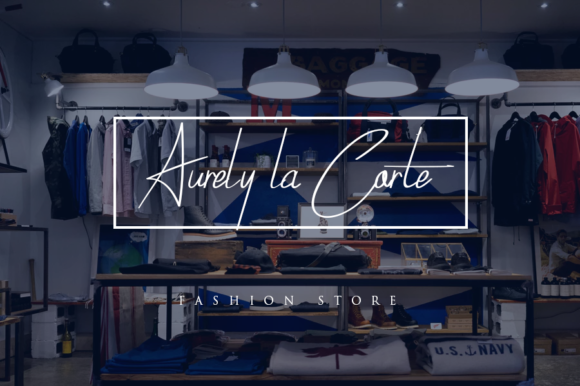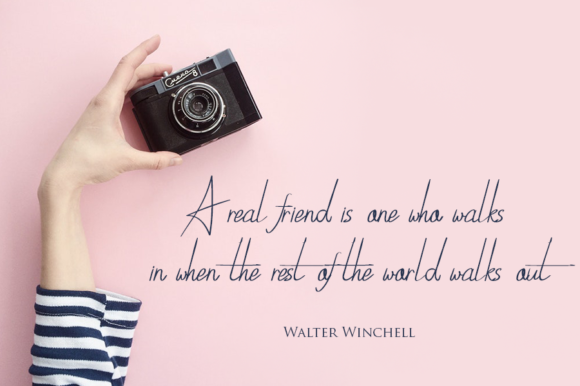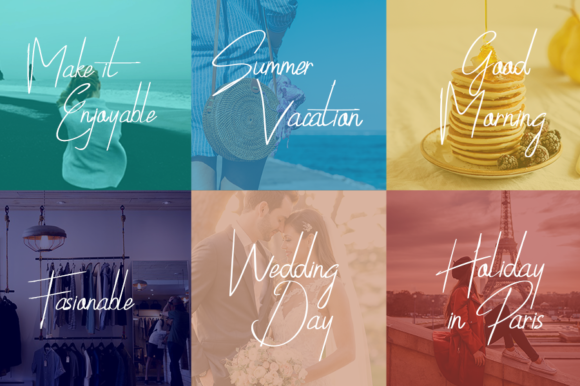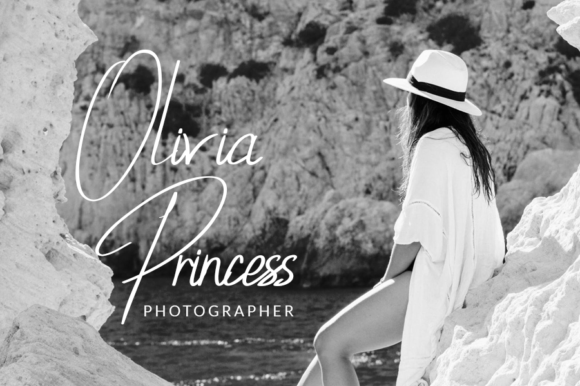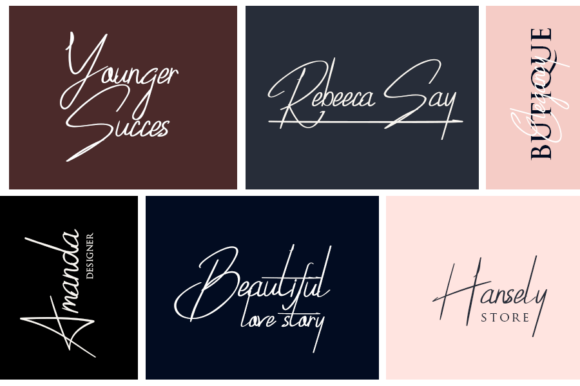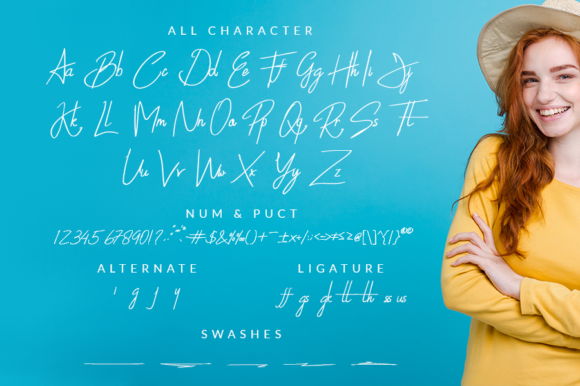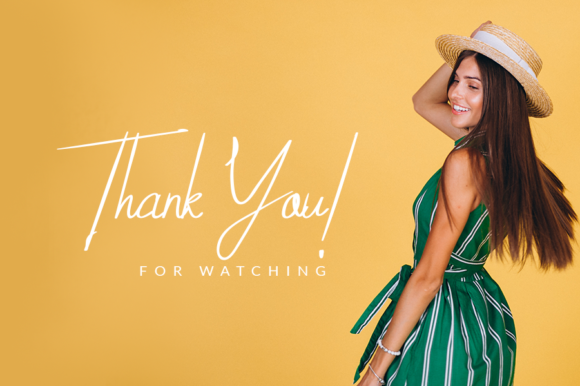
HomeScript FontsSynthia Font Script Fonts Synthia Font FacebookXPinterestWhatsApp Synthia Font Poster 2 Synthia Font Poster 3 Synthia Font Poster 4 Synthia Font Poster 5 Synthia Font Poster 6 Synthia Font Poster 7 Synthia Font Poster 8 About Synthia Font Synthia is a bold and sweet script with a contemporary vibe. Use it to add a personal charm to any creative idea. DOWNLOAD NOW People also explored Brookville Font Swamp Thing Font Larissa Beauty Font Giahfita Ebifuri Font Mighty Heart Font Evensong Soonetta Script Font Llama Zoo Font 453 0 TagsSynthia Font Previous articleCatherina FontNext articleCute Olaf Font LEAVE A REPLY Cancel reply Comment: Please enter your comment! Name:* Please enter your name here Email:* You have entered an incorrect email address! Please enter your email address here Website: Save my name, email, and website in this browser for the next time I comment. Personal Use Free Geracella Personal Use Free Read more about this font Boldist Personal Use Free Read more about this font Farmgarden Personal Use Free Read more about this font Hallo Betty Personal Use Free Read more about this font BLOG Where to Buy American Fonts Online in 2024 Where to Buy American Fonts Online: The Ultimate Guide for 2024 Looking for the perfect American font to elevate your design projects? You're in the... Fonts That Capture the Spirit of New York City Exploring Font Trends Transform Your Website: Elevate Your Typography with 7 Best Web Font Generators